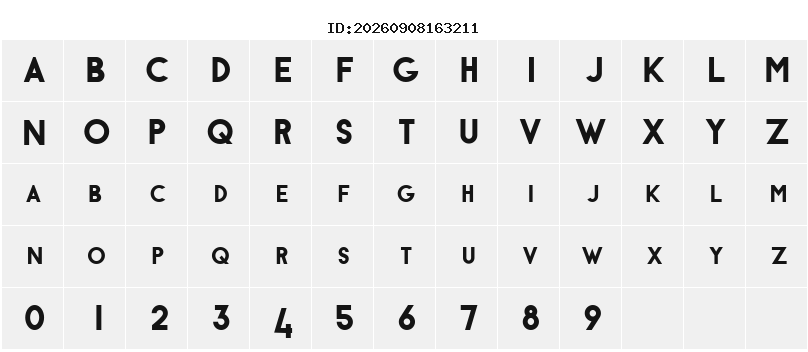
Vulpes Preview
• Font Name: Vulpes
• Full Font Name: Vulpes
• Designer: Marco Ballarè
About Vulpes.ttf
Vulpes.ttf is a modern, elegant sans-serif font designed for ultimate readability and visual harmony. Perfect for branding, headlines, web design, and print materials.